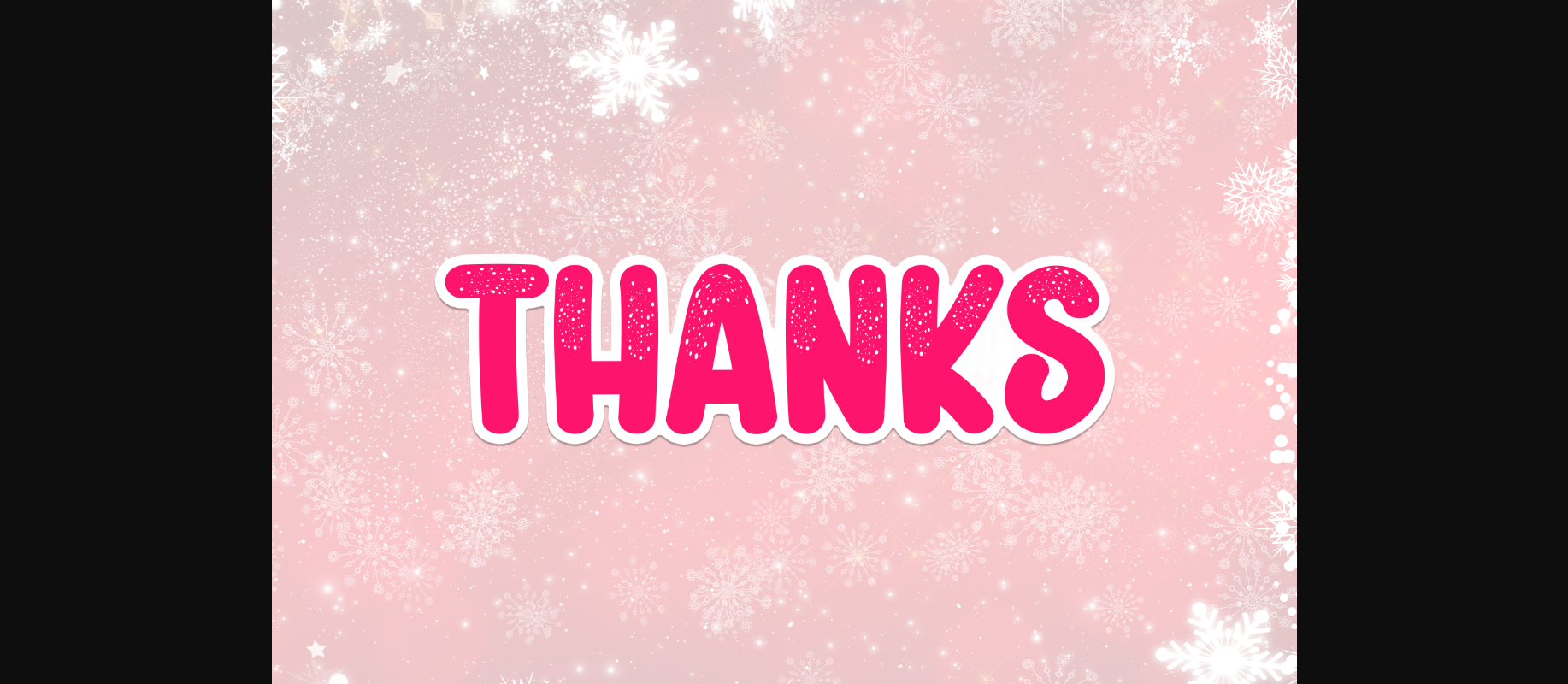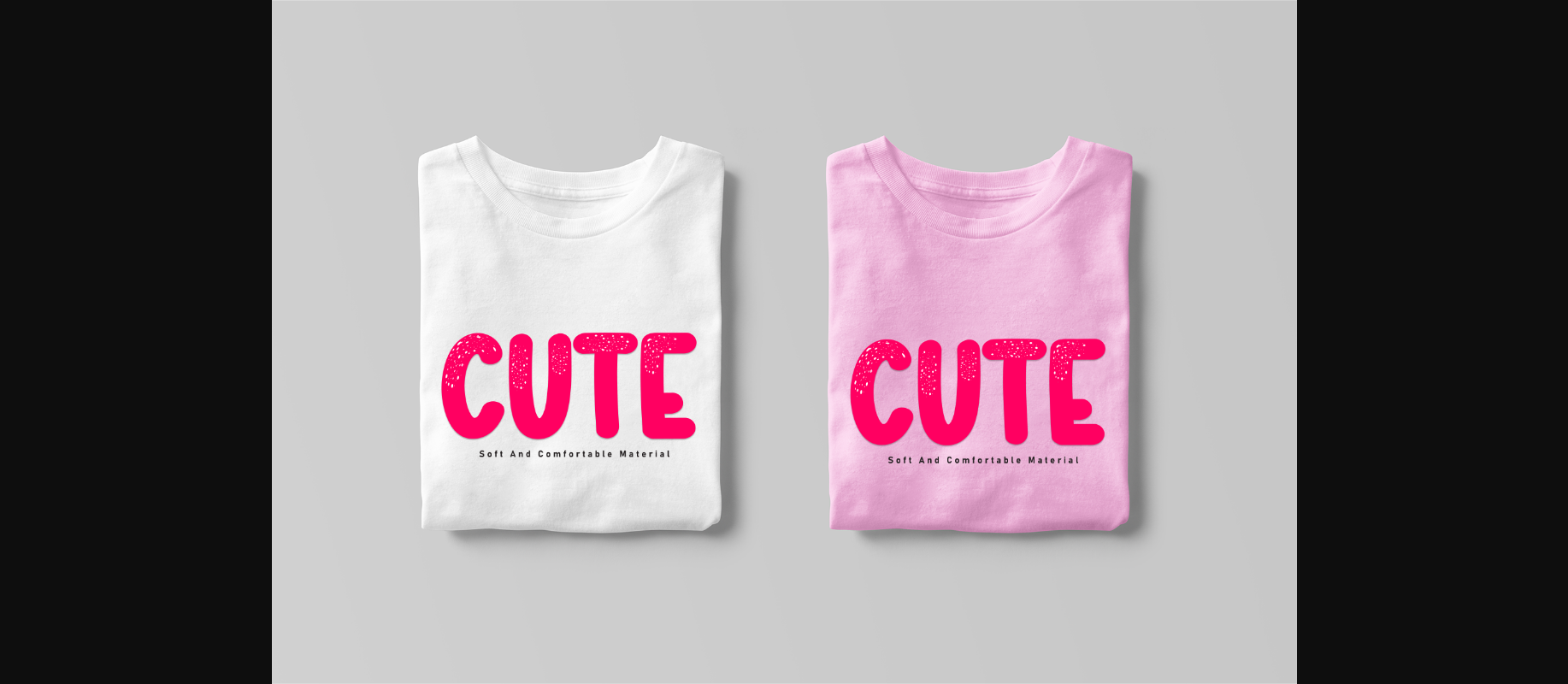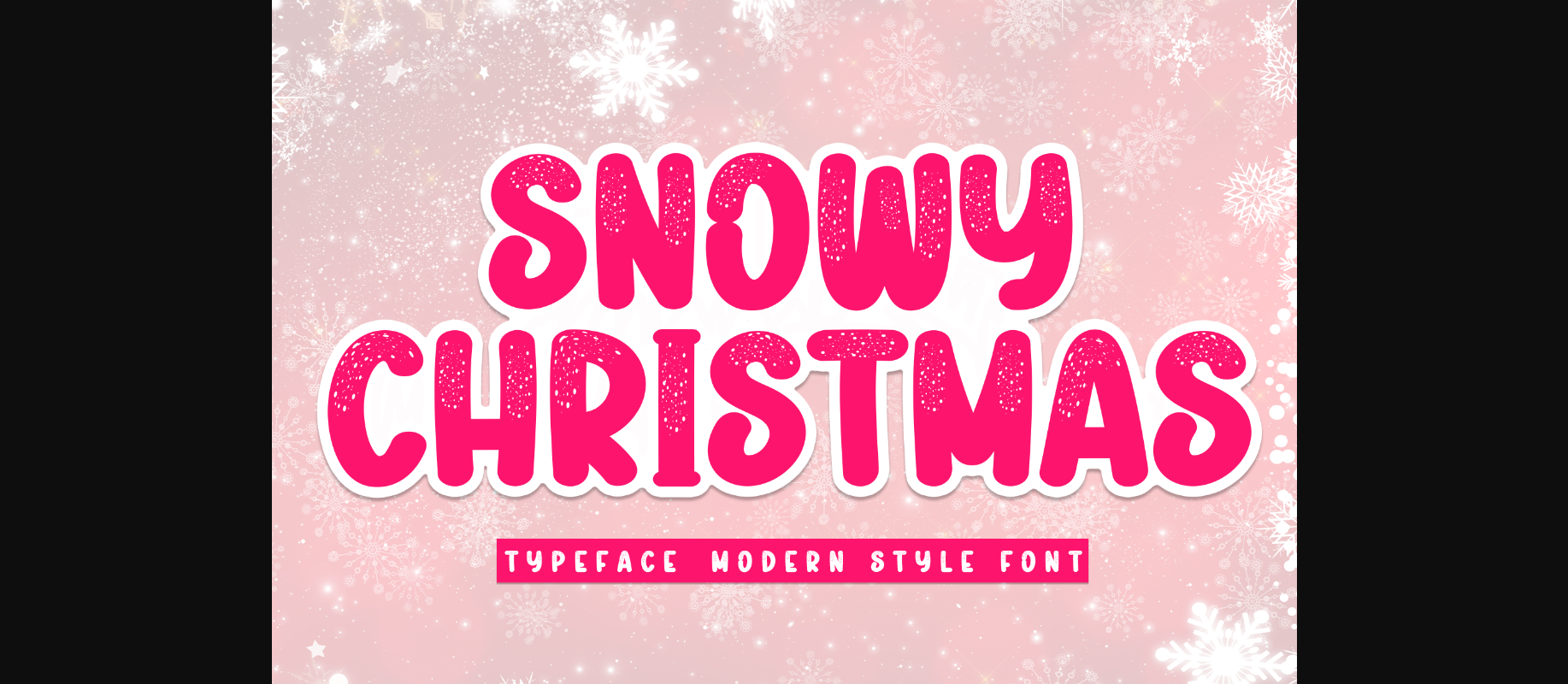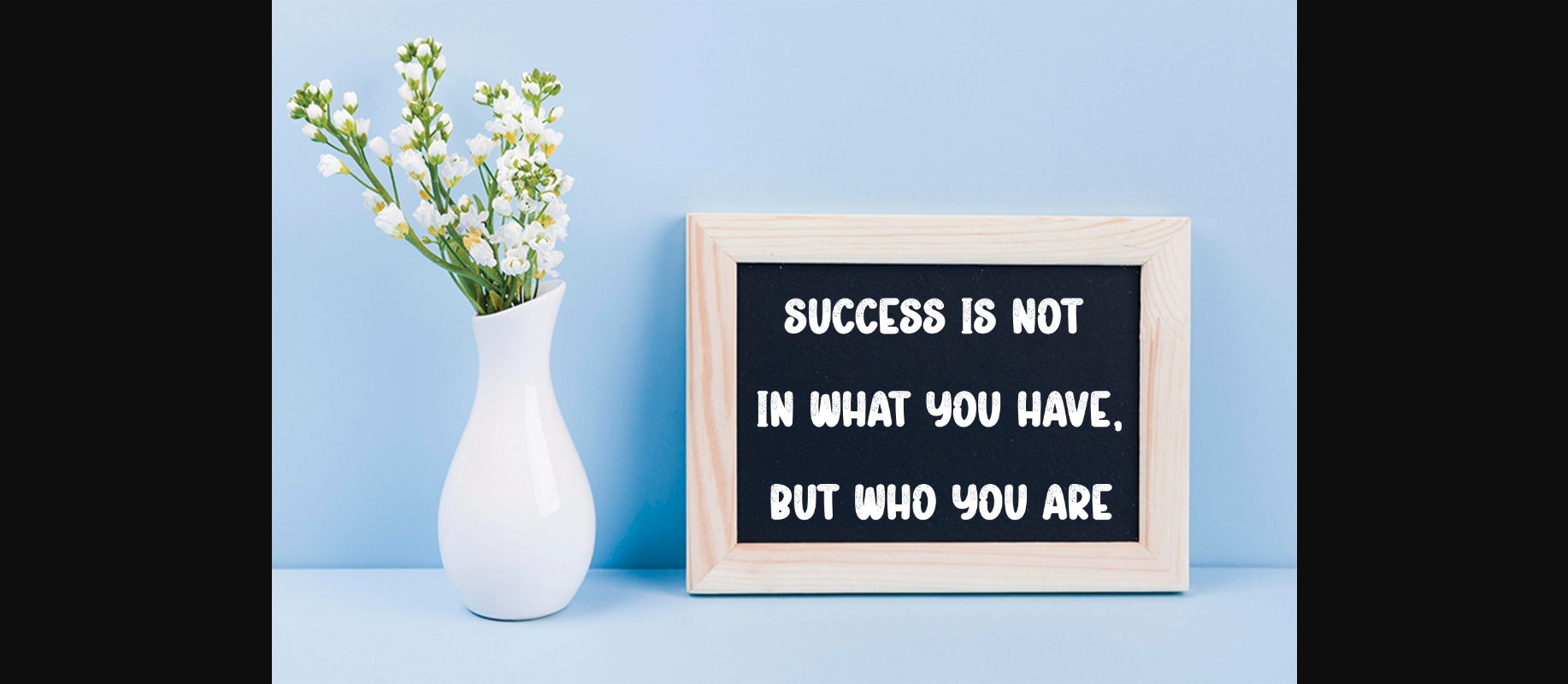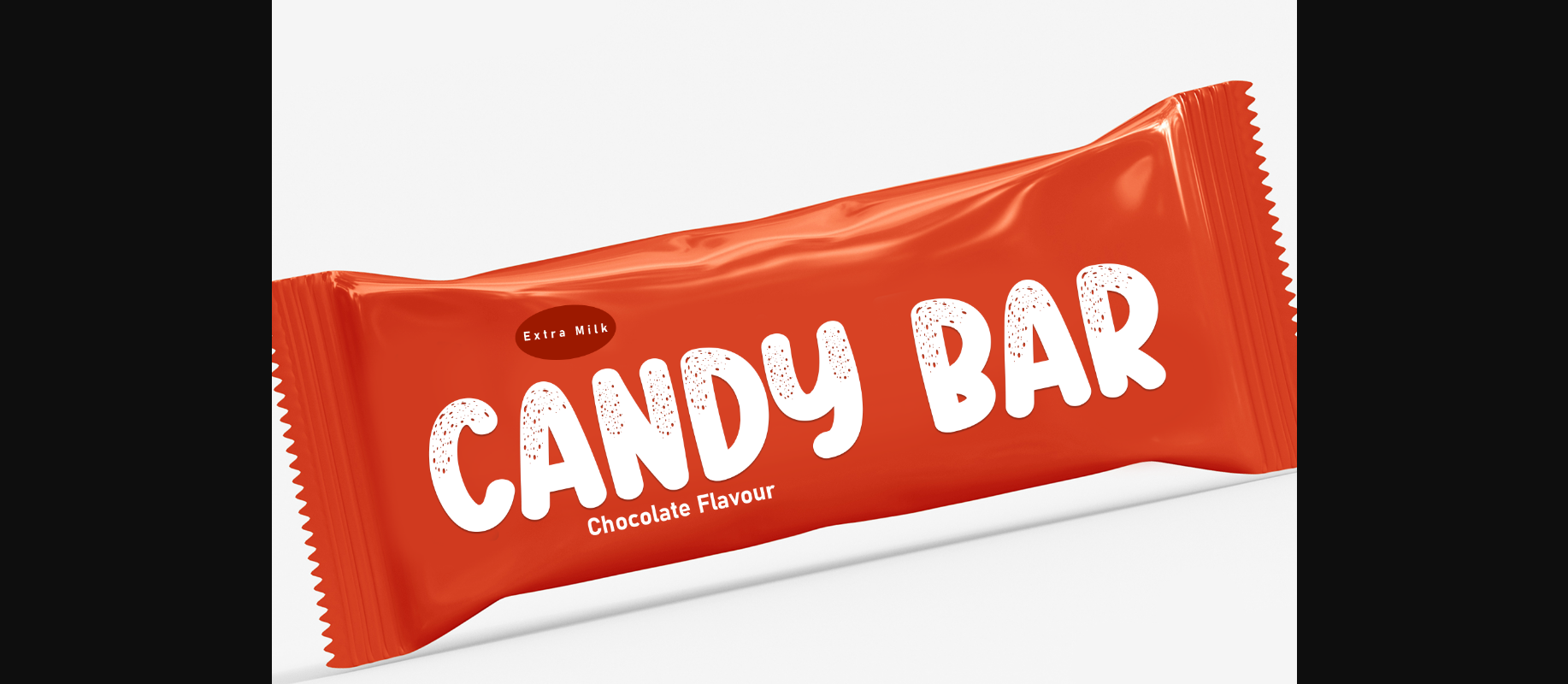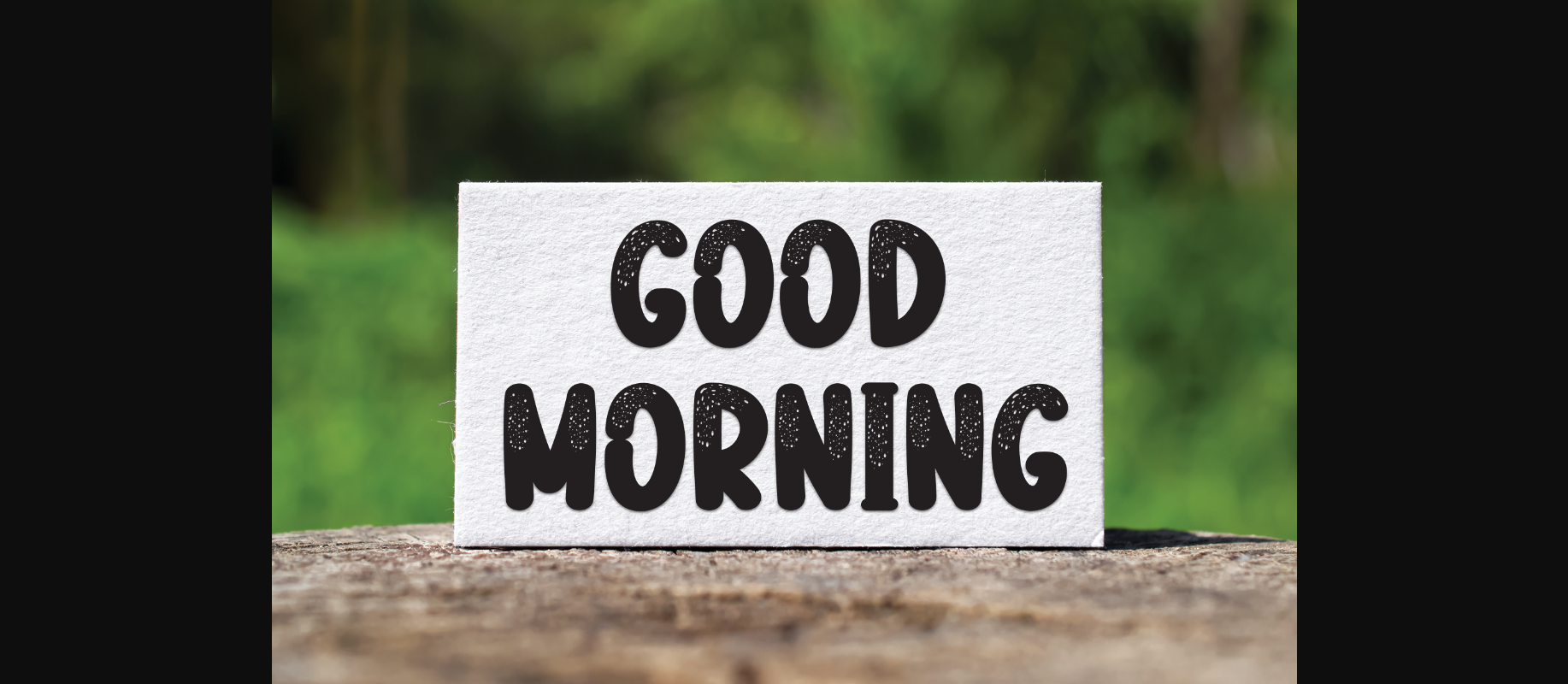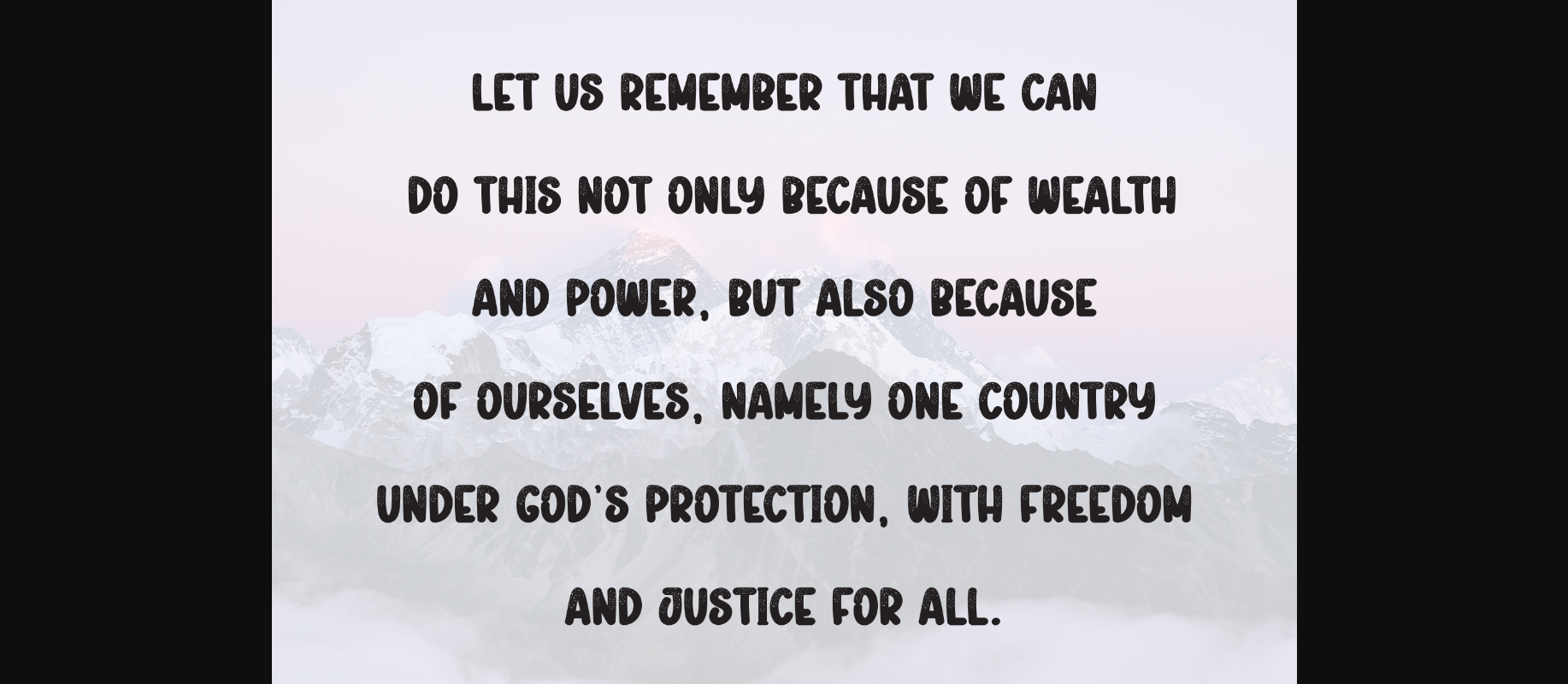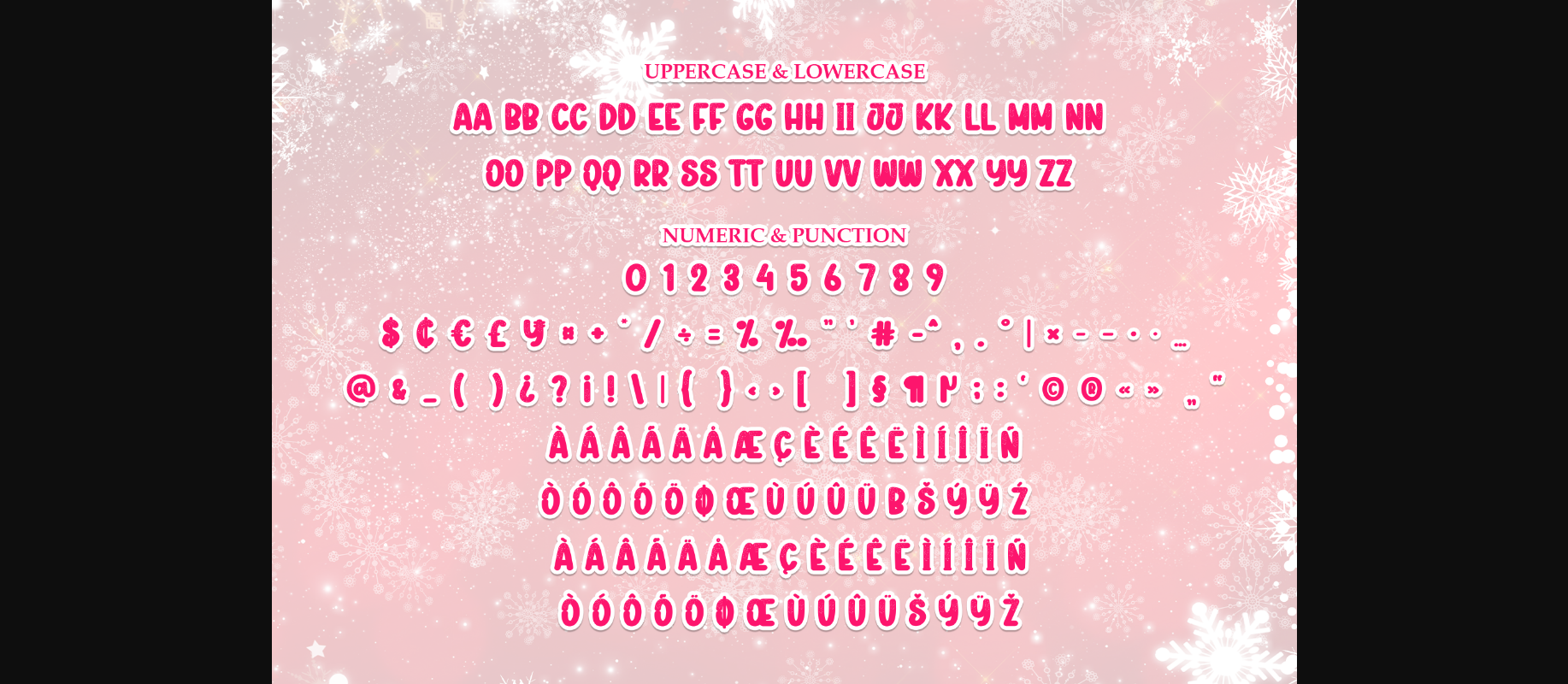
Snowy Christmas Font
About Snowy Christmas Font
Snowy Christmas is a charming decorative font that adds a touch of winter magic to your text. Each letter is adorned with delicate snowflakes, creating a cozy and enchanting atmosphere perfect for seasonal projects and holiday designs.